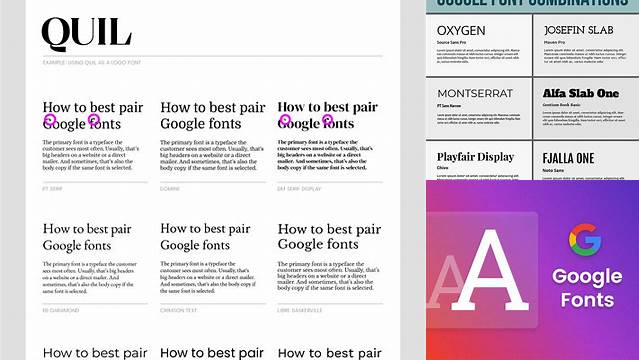
Best Google Fonts: Font Pairing Guide For 2024
Choosing the right fonts can be a real game-changer for your website or design project. Fonts set the tone, enhance readability, and make your content shine. But let's be honest, guys, figuring out which fonts play nice together can feel like a Herculean task. That's where Google Fonts come in! With a vast library of free, high-quality fonts, Google Fonts offers endless possibilities. However, the sheer number of options can be overwhelming. Fear not! This guide will walk you through the best Google Fonts pairings, ensuring your projects look professional and polished.
Why Font Pairing Matters
Before we dive into specific pairings, let's talk about why font pairing is so crucial. Think of fonts as the voice of your content. A harmonious pairing creates a seamless and engaging experience for your audience. Conversely, a mismatched pair can be jarring and unprofessional. Effective font pairing achieves several key goals:
- Enhances Readability: A well-chosen font combination makes your text easy to read and digest. This is especially important for body text, where readability is paramount. A clear and legible font will keep your audience engaged and prevent eye strain. Think about the difference between reading a document in Times New Roman versus something overly stylized and decorative. The former is designed for extended reading, while the latter might be better suited for a short headline.
- Establishes Visual Hierarchy: Using different fonts for headings and body text creates a clear visual hierarchy, guiding the reader through your content. A strong, bold font for headings draws the eye and signals the start of a new section, while a simpler font for the body text ensures a comfortable reading experience. This hierarchy helps readers quickly scan and understand the structure of your content, allowing them to focus on the key information.
- Sets the Tone and Mood: Fonts have personalities! Some are modern and sleek, others are classic and elegant, and still others are playful and whimsical. The fonts you choose should align with the overall tone and mood of your project. For example, a website for a law firm might use a more formal and traditional font pairing, while a blog about travel might opt for something more adventurous and contemporary. Consider the emotional impact of your font choices and how they contribute to the overall message you want to convey.
- Creates a Professional Look: Thoughtful font pairings elevate your design, giving it a polished and professional appearance. It shows that you've paid attention to detail and care about the user experience. Inconsistent or clashing fonts can make your project look amateurish, undermining your credibility. Choosing a cohesive font palette demonstrates your understanding of design principles and your commitment to quality.
- Reflects Your Brand Identity: Your font choices are a key element of your brand identity. They contribute to the overall look and feel of your brand and help to create a consistent message across all your platforms. Using the same fonts consistently in your logo, website, and marketing materials reinforces your brand recognition and helps your audience connect with your brand on a deeper level. Think of iconic brands like Coca-Cola or Google – their font choices are instantly recognizable and integral to their brand identity.
Choosing the right font pairing is about more than just aesthetics; it's about creating a cohesive and effective communication strategy. By carefully selecting fonts that complement each other, you can enhance readability, establish visual hierarchy, set the tone, and ultimately create a more engaging and impactful experience for your audience.
Understanding Font Classifications
To master font pairing, it's helpful to understand the basic categories of fonts. Knowing the characteristics of each category will make it easier to find fonts that work well together. Here's a quick rundown:
- Serif Fonts: Serif fonts are characterized by the small decorative strokes (serifs) at the ends of the letters. They often convey a sense of tradition, authority, and elegance. Think of fonts like Times New Roman, Georgia, and Merriweather. These fonts are often used in print materials, such as books and newspapers, due to their readability in long blocks of text. The serifs help guide the eye across the page, making it easier to read extended passages. However, they can sometimes appear a bit cluttered on screens, especially at smaller sizes.
- Sans-Serif Fonts: Sans-serif fonts, as the name suggests, lack serifs. They have a cleaner, more modern appearance and are often associated with simplicity and clarity. Popular sans-serif fonts include Arial, Helvetica, and Roboto. Sans-serif fonts are widely used on websites and digital interfaces because they are highly legible on screens. Their clean lines and minimalist aesthetic make them a popular choice for modern designs. They can also be used effectively in headings and subheadings to create a strong visual hierarchy.
- Slab Serif Fonts: Slab serif fonts have thick, block-like serifs, giving them a bold and assertive look. They often evoke a sense of strength, retro style, and industrial design. Examples include Rockwell, Courier New, and Arvo. Slab serif fonts can be a great choice for headlines and branding materials where you want to make a strong statement. They have a distinct personality that can add character and visual interest to your design. However, they can be overwhelming if used for large blocks of text, so it's best to use them sparingly.
- Script Fonts: Script fonts mimic the appearance of handwriting, adding a touch of personality and elegance. They can range from formal and calligraphic to casual and playful. Examples include Brush Script MT, Pacifico, and Lobster. Script fonts are best used sparingly, as they can be difficult to read in large blocks of text. They are often used for logos, invitations, and other decorative elements where a touch of flair is desired. It's important to choose a script font that is legible and complements the other fonts in your design.
- Display Fonts: Display fonts are designed to be eye-catching and attention-grabbing. They come in a wide variety of styles, from bold and geometric to quirky and whimsical. Examples include Impact, Bebas Neue, and Playfair Display. Display fonts are best used for headings, logos, and other prominent elements where you want to make a statement. They are not typically suitable for body text, as their decorative nature can make them difficult to read in large blocks. When using a display font, it's important to pair it with a more neutral font for the body text to ensure readability and balance.
Understanding these font classifications is the first step in creating harmonious pairings. Now, let's explore some tried-and-true Google Fonts pairings that you can use in your projects.
Top Google Fonts Pairings for 2024
Alright, let's get to the good stuff! Here are some of the best Google Fonts pairings that are trending in 2024. These combinations are versatile, stylish, and guaranteed to make your designs pop:
1. Montserrat & Raleway
This is a classic pairing that exudes modernity and sophistication. Montserrat, a geometric sans-serif, works beautifully for headings, providing a clean and impactful look. Raleway, another elegant sans-serif, complements Montserrat perfectly in body text, offering excellent readability. The clean lines and modern aesthetic of this pairing make it ideal for websites, branding materials, and digital publications. Montserrat's strong geometric forms create a sense of structure and professionalism, while Raleway's slightly lighter weight and rounded terminals add a touch of warmth and approachability. Together, they create a balanced and harmonious visual experience.
Consider using Montserrat in bold weights for your headings to draw attention and create a clear visual hierarchy. You can then use Raleway in a regular or light weight for your body text to ensure readability. This pairing is particularly effective for tech startups, design agencies, and businesses that want to project a modern and sophisticated image. The versatility of Montserrat and Raleway also makes them suitable for a wide range of applications, from website design to print materials.
2. Open Sans & Lato
If you're looking for a font pairing that's both clean and approachable, Open Sans and Lato are a fantastic choice. Open Sans is a highly legible sans-serif that works well in both headings and body text. Lato, with its semi-rounded details, adds a touch of warmth and friendliness. This pairing is incredibly versatile and suitable for a wide range of projects, from websites to presentations. Open Sans is known for its neutrality and readability, making it a safe and reliable choice for body text. Lato's slightly rounded corners and humanist design give it a more approachable and friendly feel, making it a great complement to Open Sans in headings or subheadings.
The combination of Open Sans and Lato is particularly well-suited for businesses that want to convey a sense of trustworthiness and approachability. Think of websites for healthcare providers, educational institutions, or non-profit organizations. The clean and legible nature of these fonts ensures that your message is communicated clearly and effectively. You can also experiment with different weights and styles of Open Sans and Lato to create visual interest and hierarchy within your design.
3. Playfair Display & Montserrat
For a touch of elegance and sophistication, pair Playfair Display with Montserrat. Playfair Display is a beautiful serif font with high contrast, making it perfect for headings and titles. Montserrat, as mentioned earlier, is a clean sans-serif that provides excellent readability in body text. This combination creates a classic yet modern feel, ideal for blogs, magazines, and websites with a focus on visual appeal. The contrast between the serif and sans-serif fonts adds visual interest and helps to create a clear hierarchy. Playfair Display's refined letterforms and delicate serifs evoke a sense of luxury and sophistication, while Montserrat's clean lines and geometric shapes provide a modern and grounded foundation.
This font pairing is a popular choice for fashion blogs, lifestyle websites, and online magazines that want to project an air of elegance and style. Consider using Playfair Display in a larger size and bolder weight for your headlines to make a strong statement. You can then use Montserrat in a smaller size and lighter weight for your body text to ensure readability. This combination is also effective for branding materials, such as logos and business cards, where you want to convey a sense of sophistication and attention to detail.
4. Roboto & Roboto Slab
If you're looking for a font pairing that's both modern and professional, Roboto and Roboto Slab are an excellent choice. Roboto is a widely used sans-serif font known for its clean lines and excellent readability. Roboto Slab is a slab-serif version of Roboto, offering a slightly more robust and authoritative feel. Pairing these two fonts creates a cohesive and contemporary look, perfect for corporate websites, technical documentation, and app interfaces. The shared DNA of Roboto and Roboto Slab ensures a harmonious visual experience, while the contrast between the sans-serif and slab-serif styles adds visual interest and hierarchy.
This font pairing is a popular choice for tech companies, software developers, and businesses in the engineering and manufacturing industries. The clean and modern aesthetic of Roboto and Roboto Slab conveys a sense of precision, efficiency, and technical expertise. Consider using Roboto Slab for your headings and subheadings to create a strong visual impact, and then use Roboto for your body text to ensure readability. This combination is also effective for creating a consistent brand identity across both digital and print materials.
5. Merriweather & Oswald
For a font pairing that's both classic and readable, Merriweather and Oswald are a great option. Merriweather is a serif font designed specifically for on-screen reading, making it an excellent choice for body text. Oswald is a condensed sans-serif font that works well for headings, adding a touch of boldness and modernity. This combination is ideal for blogs, news websites, and online publications that prioritize readability. Merriweather's robust serifs and open forms make it easy to read in long blocks of text, while Oswald's condensed letterforms and bold weight make it stand out in headlines and titles.
This font pairing is particularly well-suited for websites and publications that focus on content and readability. Think of news websites, online magazines, and blogs that feature long-form articles and in-depth analysis. The combination of Merriweather and Oswald ensures that your content is both visually appealing and easy to read. Consider using different weights and styles of Oswald to create visual interest and hierarchy within your headings, and then use Merriweather in a regular weight for your body text.
Tips for Successful Font Pairing
Now that you have some great Google Fonts pairings to work with, let's talk about some general tips for successful font pairing:
- Contrast is Key: Look for fonts that have distinct differences in style and weight. Pairing a serif with a sans-serif is a classic approach, but you can also experiment with different weights and sizes within the same font family. The key is to create a clear visual hierarchy that guides the reader through your content.
- Consider the Mood: As we discussed earlier, fonts have personalities. Choose fonts that align with the overall tone and mood of your project. A formal project might call for a classic serif and sans-serif combination, while a more playful project might benefit from a script or display font paired with a clean sans-serif.
- Limit Your Choices: It's generally best to stick to two or three fonts in a single project. Too many fonts can create a cluttered and confusing look. Focus on finding a strong font pairing that meets your needs and then use variations in weight and size to create visual interest.
- Test for Readability: Always test your font pairings to ensure they are legible, especially in body text. Try viewing your design on different devices and screen sizes to see how the fonts render. If the text is difficult to read, you may need to adjust the size, weight, or spacing of your fonts.
- Use Online Tools: There are many online tools and resources available to help you with font pairing. Websites like FontPair and Typewolf offer curated lists of font pairings and allow you to experiment with different combinations. These tools can be a great source of inspiration and help you discover new and interesting pairings.
Choosing the right fonts is an essential part of creating a successful design. By understanding the principles of font pairing and exploring the vast library of Google Fonts, you can create visually stunning and highly effective designs. So go ahead, guys, experiment with these Google Fonts pairings, and let your creativity flow! With a little practice and a keen eye, you'll be a font pairing pro in no time.